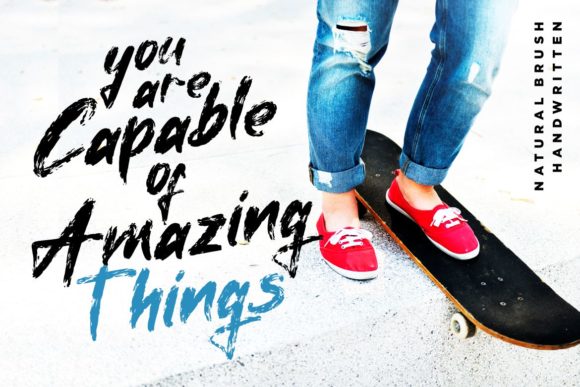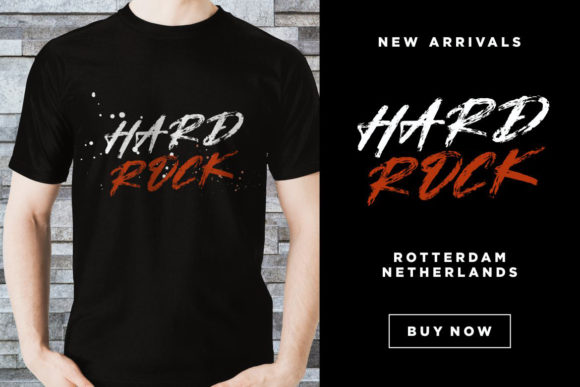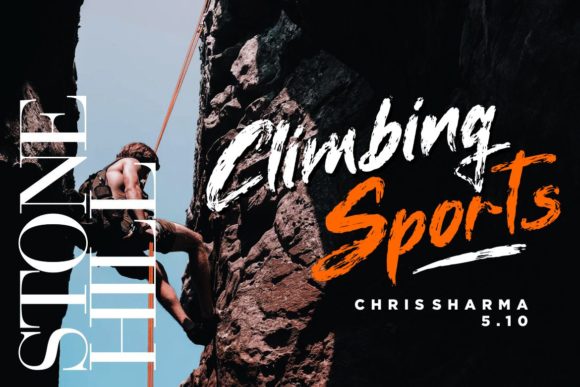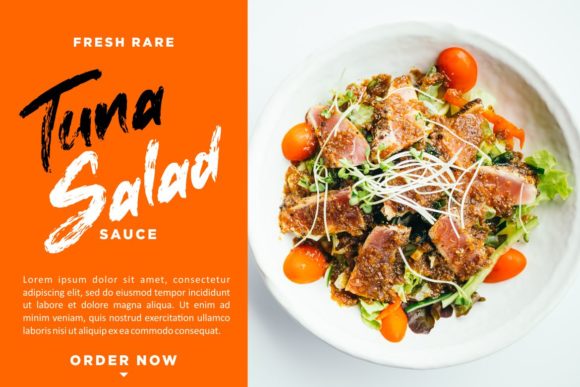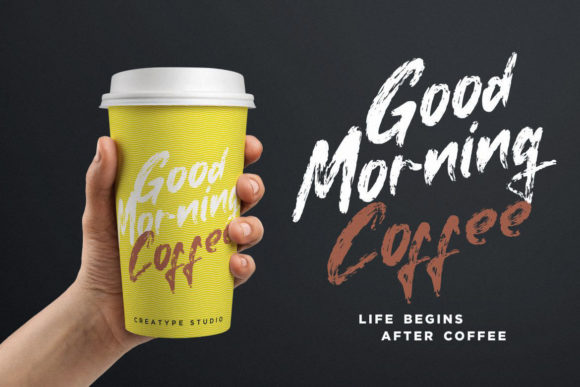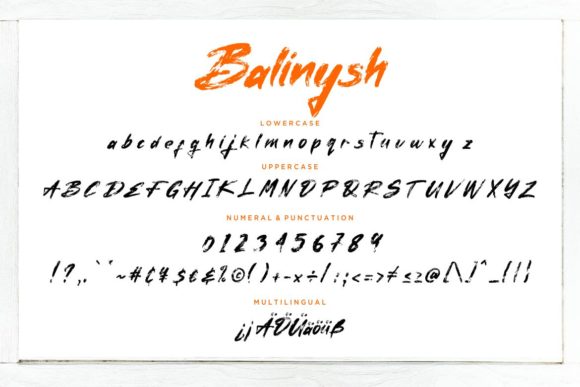
The Birth of a Beautiful Script
Have you ever felt the rush of inspiration that comes from holding a brush pen in your hand? The gentle scratch of the nib on paper, the flow of ink, and the freedom to create something truly unique? For designers, this moment is a gateway to something special – a chance to bring a vision to life. And that’s exactly what happened when the Balinysh Font was born.
With its bold, yet sophisticated style, the Balinysh Font is more than just a typeface – it’s a tool for designers who want to add a personal touch to their work. Whether you’re crafting a logo, branding a new product, or designing packaging that stands out from the crowd, this font is sure to impress. Its chunky, extended characters give it a particularly adept feel that’s hard to resist.
Key Features of Balinysh Font
- Font Style: Balinysh is a unique, handwritten script font designed to evoke a sense of elegance and sophistication.
- Font Size: Balinysh font is designed to be used at various sizes, from 12pt to 24pt, making it ideal for both body text and headings.
- Unique Characteristics: Features a distinctive, flowing script with intricate connections between letters, adding a touch of whimsy and personality to any text.
Balinysh Font Review
Overall, I think Balinysh Font is a great addition to any designer’s toolkit. ✨ Its unique blend of modern and traditional elements makes it perfect for projects that require a touch of elegance and sophistication. ✨
One of the standout features of Balinysh Font is its excellent legibility, making it easy to read even at small font sizes. ✨ It also has a wide range of languages supported, including Latin, Cyrillic, and Greek, making it a great choice for international projects.
- ⚠️ Limited font weights: Balinysh Font only comes in a few font weights, which may limit its versatility in certain projects.
- ⚠️ Not ideal for display text: While Balinysh Font is great for body text, it may not be the best choice for display text or headlines, as it can become too dense and overwhelming.
- ⚠️ Limited character set: Balinysh Font does not support all Unicode characters, which may be a limitation for projects that require a wide range of special characters.
Overall, I would give Balinysh Font 4 out of 5 stars. While it has some limitations, its unique style and excellent legibility make it a great choice for many projects. With a few more font weights and a more comprehensive character set, it could be even more versatile and useful for designers.
Tips for Getting the Most Out of Balinysh Font
Here are some tips for getting the most out of Balinysh Font:
– Use Balinysh Font for titles and headings to add a touch of elegance.
– Combine Balinysh Font with other fonts for a unique and eye-catching design.
– Experiment with different font sizes and styles to create visual interest.
Some common use cases for Balinysh Font include:
– Artistic and creative projects
Alternatives to Balinysh Font for Designers
Playfair Display is an elegant and luxurious serif font, ideal for headings and titles. It features intricate details and connections between letters, making it perfect for creating a sense of sophistication and refinement. Compared to Balinysh Font, Playfair Display is more ornate and luxurious, while Balinysh Font is more minimalist and modern.